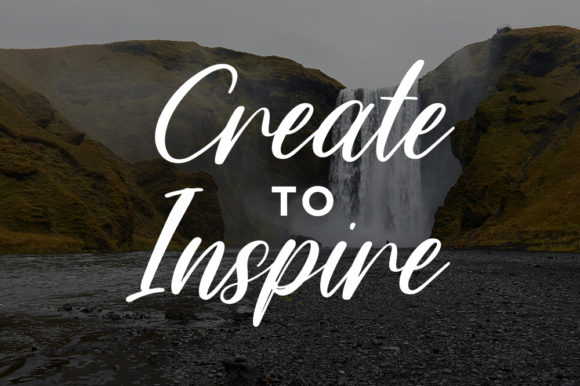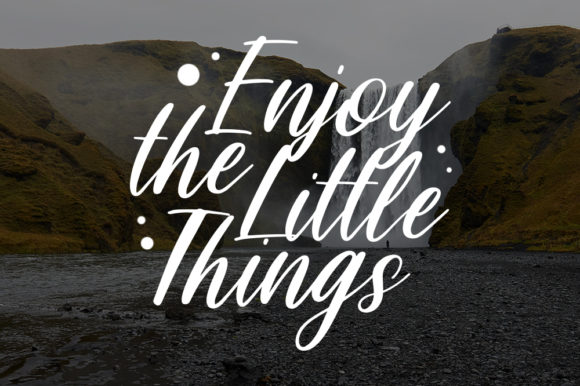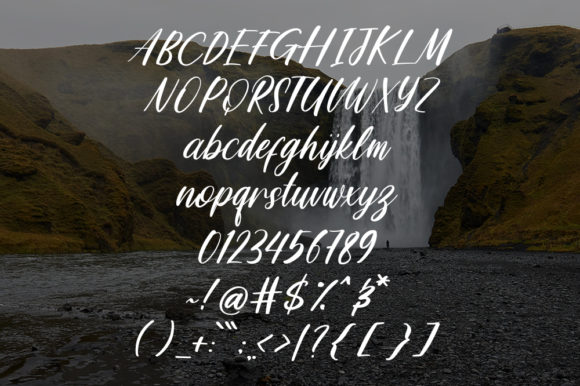
Introduction to Loosy Brush Font
Remember that moment when you stumbled upon the perfect brush pen to bring your creative project to life? The one that made your artwork feel organic and genuine? For designers, finding that perfect font can be a game-changer. Today, we’re excited to introduce you to the Loosy Brush Font – an authentic brush pen script that captures the essence of human touch.
What sets Loosy Brush Font apart is its natural, handwritten feel. Every stroke, every movement, and every nuance is reflected in this high-quality font, making it perfect for designers seeking a unique and authentic look for their creative projects. Whether you’re working on a design project or need a reliable design resource, Loosy Brush Font is an excellent choice.
Key Features of Loosy Brush Font
- Unique Hand-Drawn Design: Loosy Brush Font features a distinctive hand-drawn style, perfect for adding a personal touch to your creative project.
- Perfect for Designers: Loosy Brush Font is an excellent design resource for creatives working on branding, advertising, and editorial projects.
Honest Review: Loosy Brush Font
As a designer, I’m always on the lookout for high-quality design resources that can elevate my creative projects. Recently, I stumbled upon the Loosy Brush Font, and I must say it’s been a game-changer.
- ✨ The font has a unique, hand-drawn feel that adds a personal touch to any design project.
- ⚠️ The font may not be suitable for large-scale text, as it can become difficult to read at certain sizes.
Overall, I’m impressed with the Loosy Brush Font. Its unique design and flexibility make it an excellent addition to any design resource collection. If you’re looking for a high-quality font to elevate your creative projects, I highly recommend giving it a try.
Common Use Cases for Loosy Brush Font
The Loosy Brush Font is ideal for creative projects that require a high-quality, handwritten font. Some common use cases include:
- Food and beverage branding
- Artistic quotes and posters